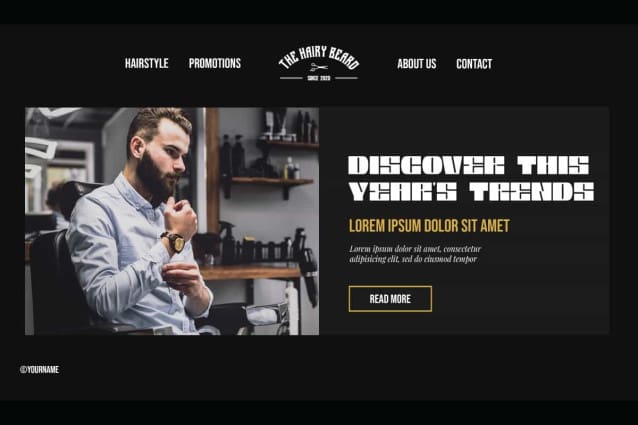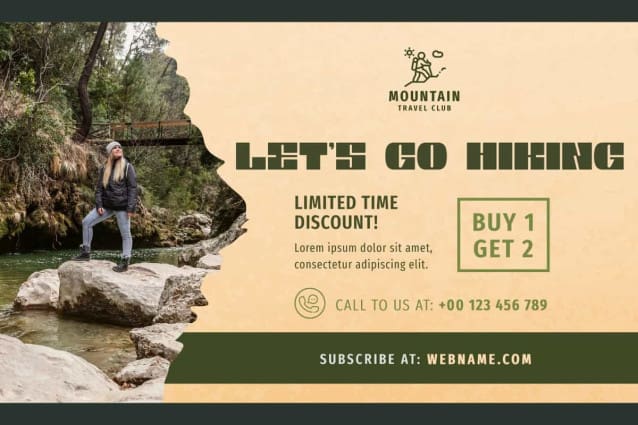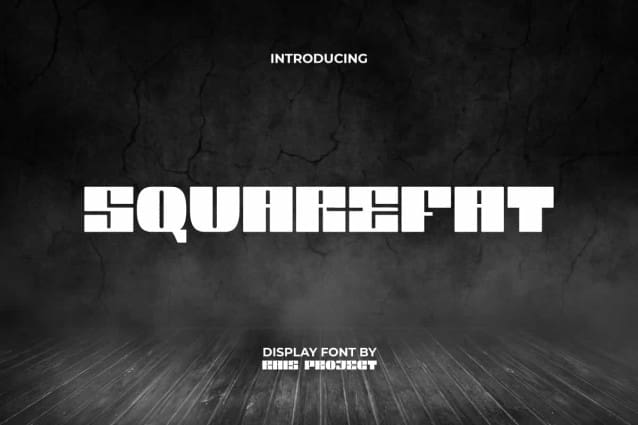
Squarefat Font
Squarefat Font is a modern stylish font, created by RaisProject. As the name suggests, this font has box-shaped characters with thick lines that will make your design stand out. It will be good for any designs, such as advertisement, brand image, custom design, invitation, label, marketing material, poster, product packaging, quotes, signage, stationery, website page, and more!
Squarefat Font includes a full set of ALL CAPS for Uppercase and Lowercase Letters, Numerals, and large range of Punctuation. This awesome font will be suitable for various industries, such as automotive, cafes, event or festival, fashion, game, printing, publishing, photography, sports, etc.